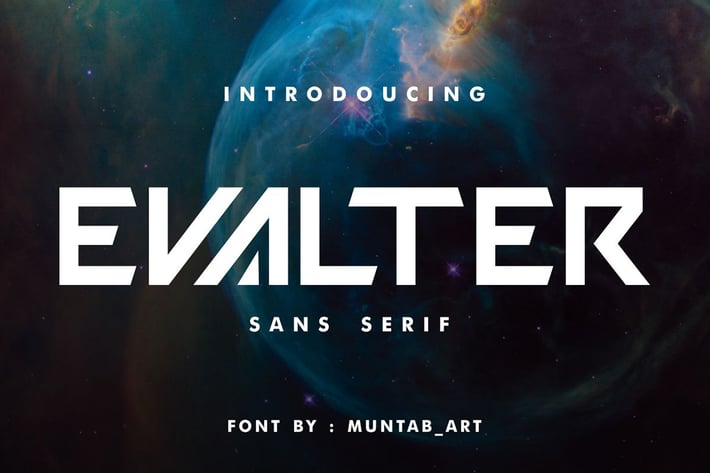
Evalter | Modern Font
Evalter fonts includes uppercase letters, numerals, a large range of punctuation. Sans serif font with modern style. Created for poster, web design, branding, illustrations, badges and some other works.